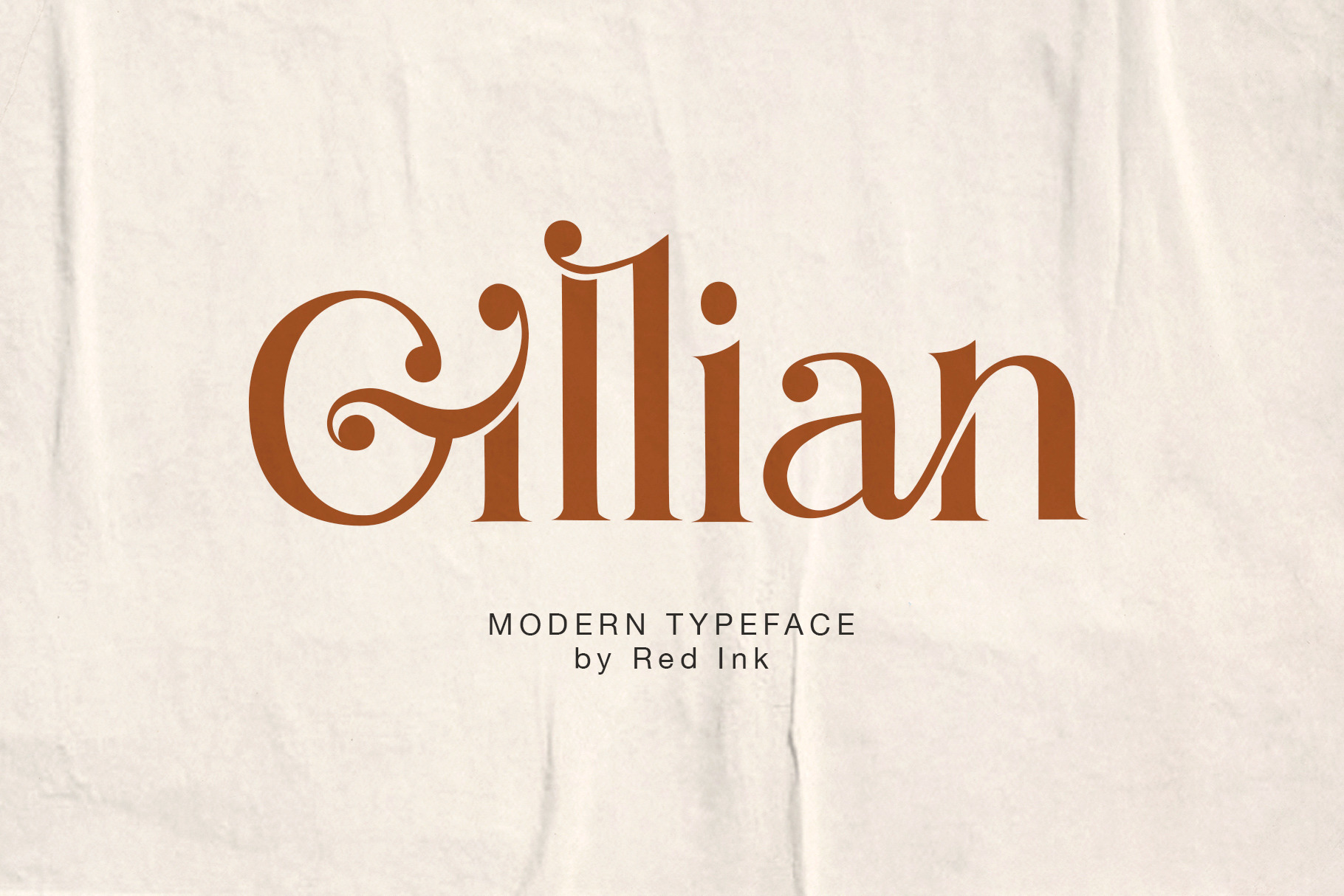
Gillian Serif Ligature Font
I'm happy to introduce you Gillian stylish serif font with classic, elegant, vintage, and magic feel. It’s perfect tool to create amazing designs, like vintage cards, modern t-shirts, retro posters, unusual mugs, luxury branding materials, and any other projects you are working on.
Gillian font comes with lots of OTF, includes 115 ligatures and alternate letters. So you can create unique stylish typography designs,